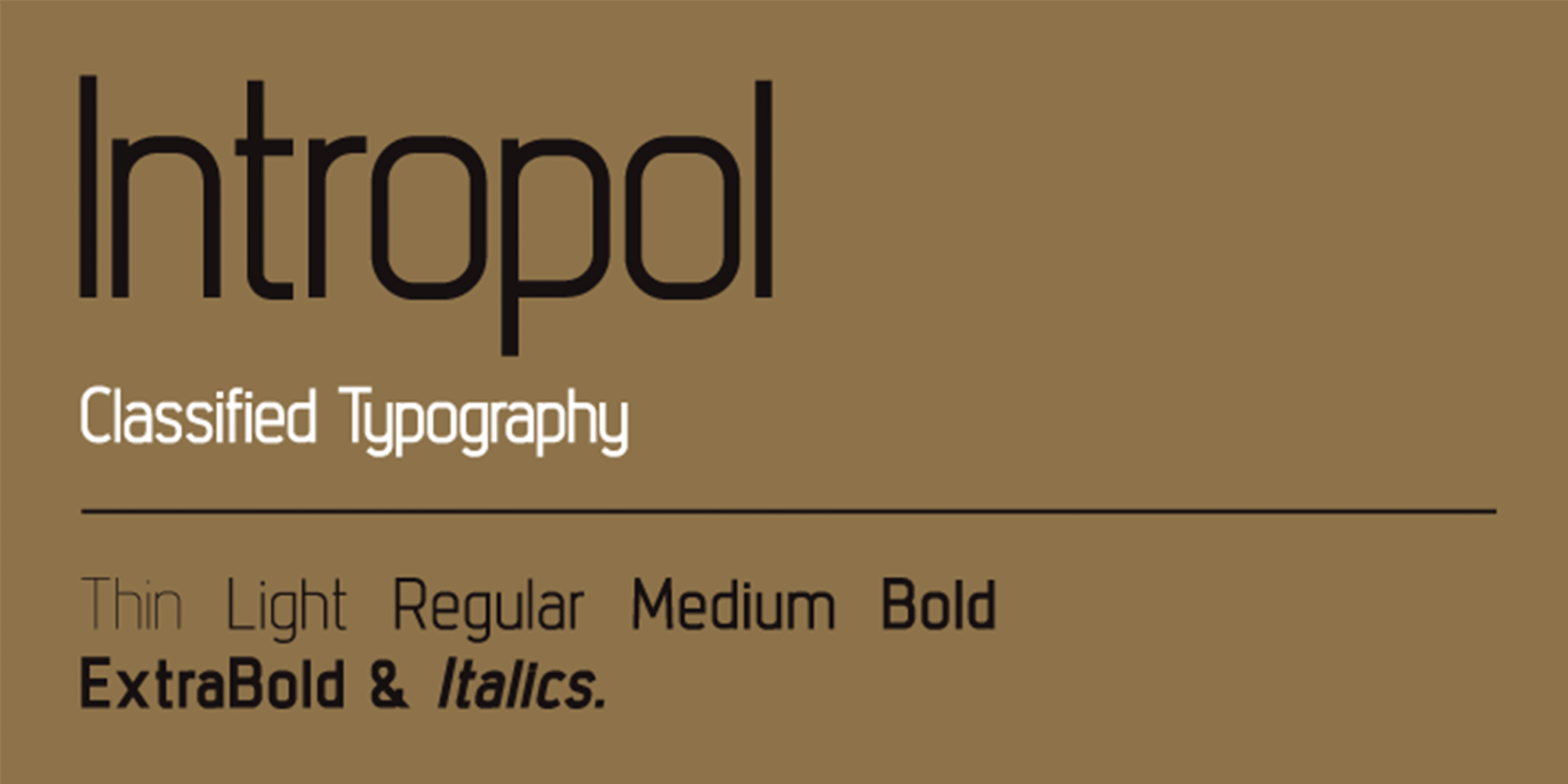
Intropol Font Family
Intropol Font Family is a versatile font designed to adapt beautifully across different design styles, offering dependable readability and balance. A modern journalistic style typeface. The subtle condensed characters create great economy of space best suited to brochure, editorial and magazine layouts. Also using the contrasting weights you can add great dimension across headline and body copy. Details include 6 weights with italics, an extended European character set, manually edited kerning and Euro symbol.